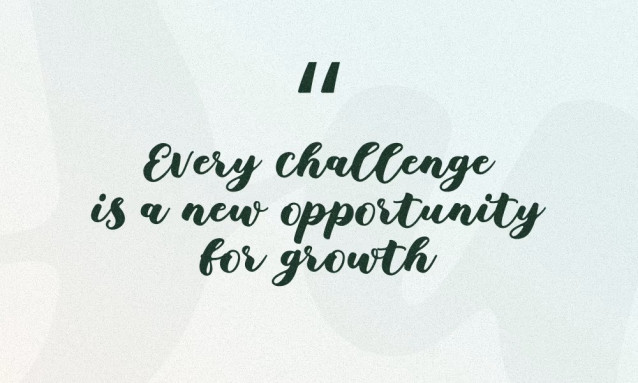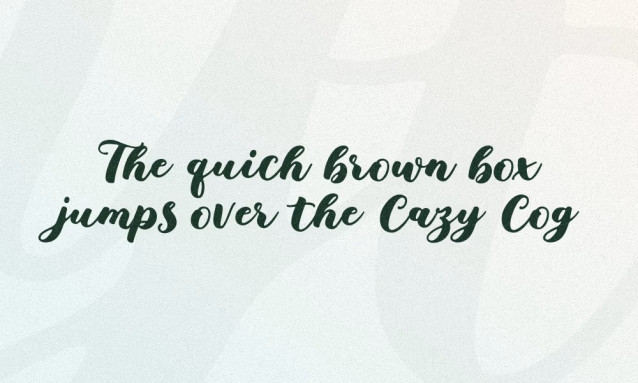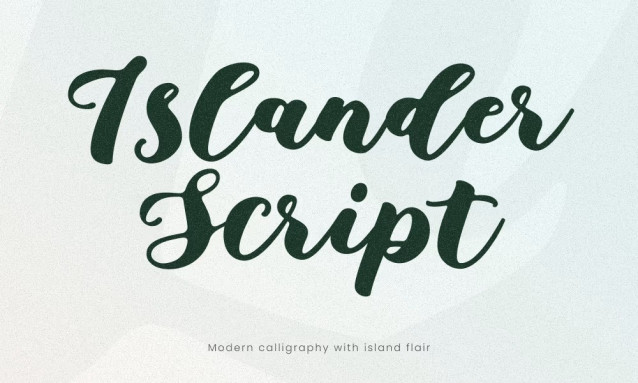
Islander Script Font, a bold handwritten font crafted by Greetings Island. This script features smooth brush strokes, expressive curves, and a laid-back elegance that feels both modern and timeless.
Whether you’re creating party invitations, logos, social posts, or branding materials, Islander Script brings charm, personality, and a handmade touch to every project.
Designed to stand out with style, Islander Script is the perfect choice for adding warmth and flair to your creative work.